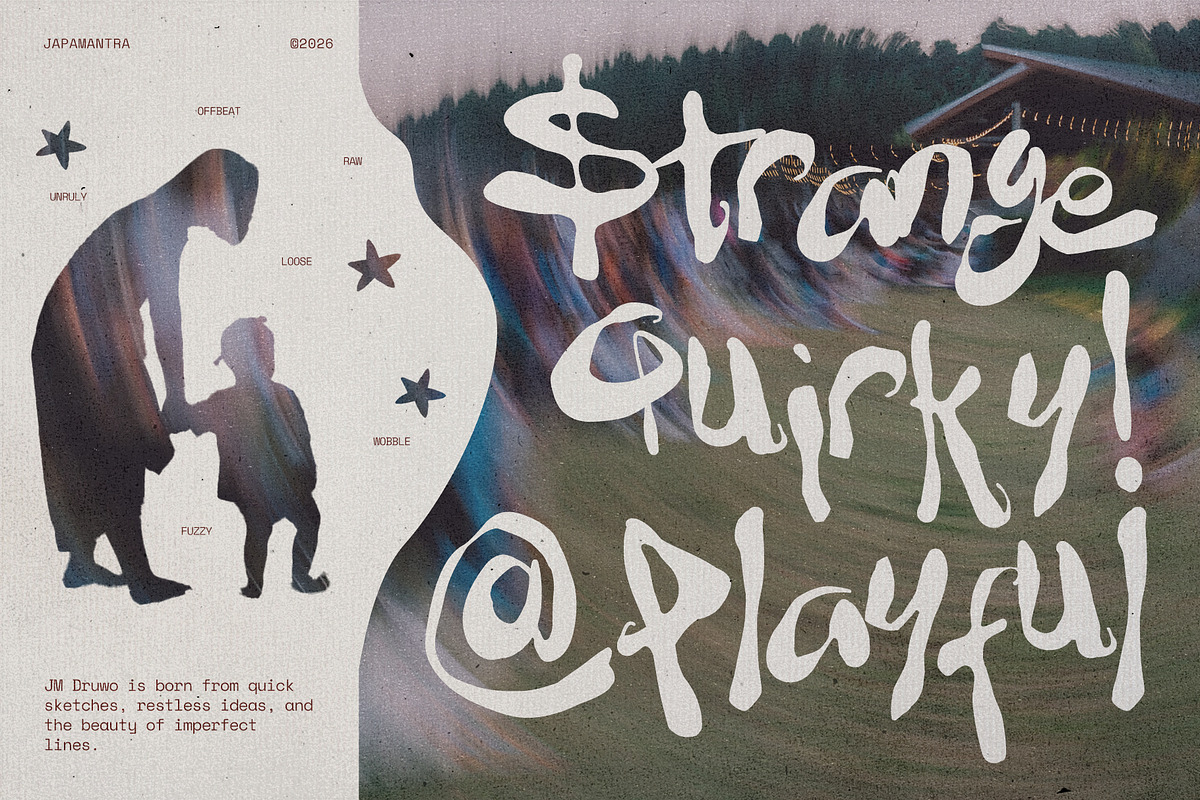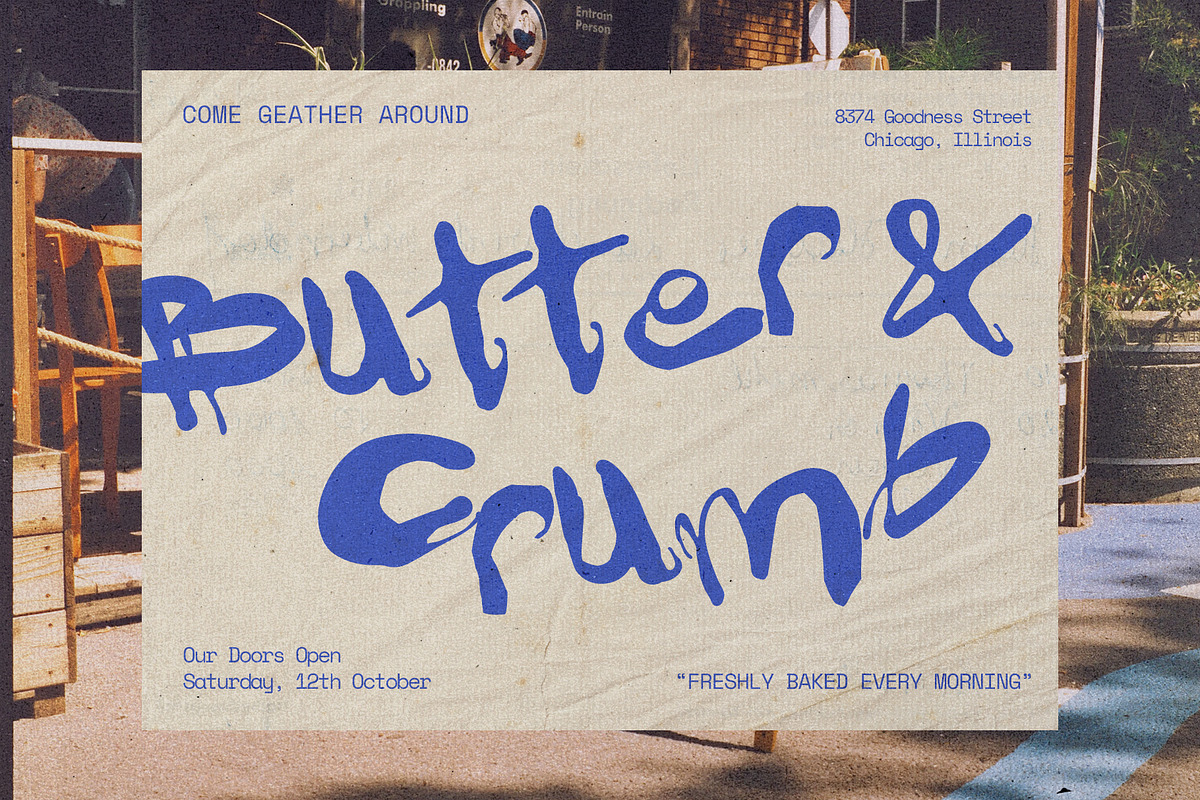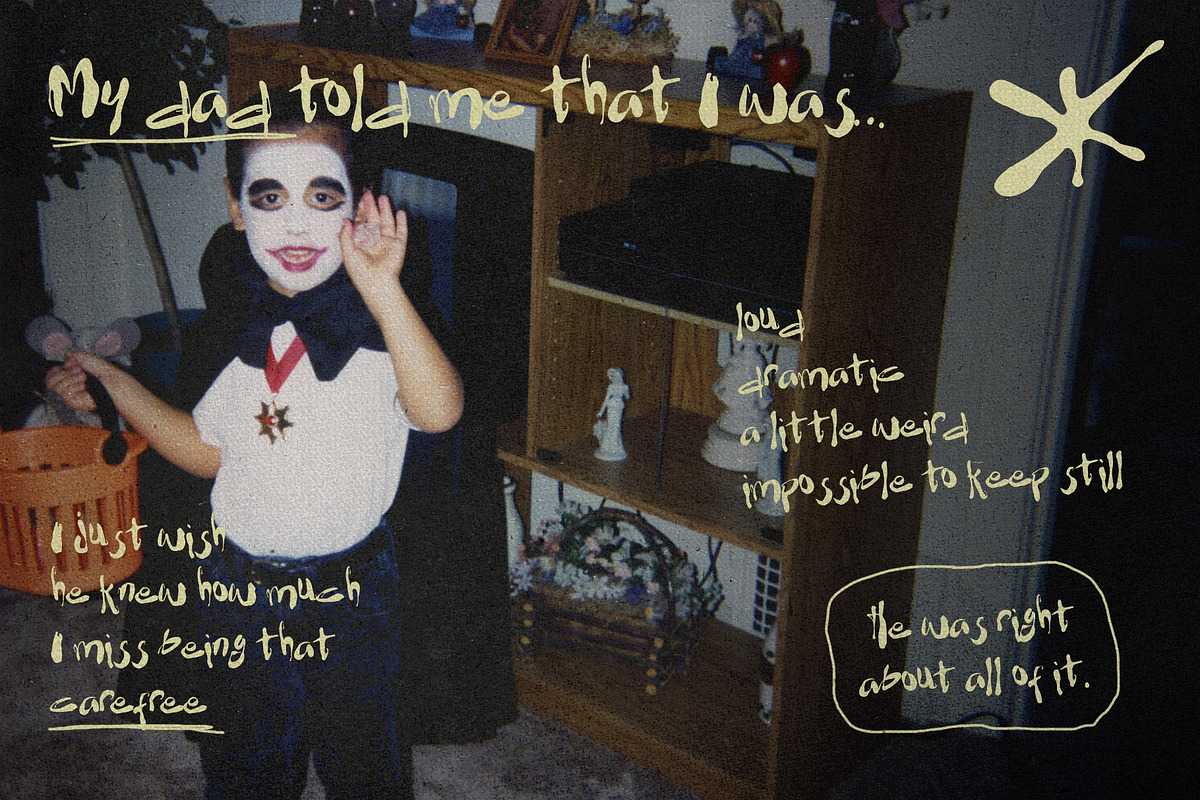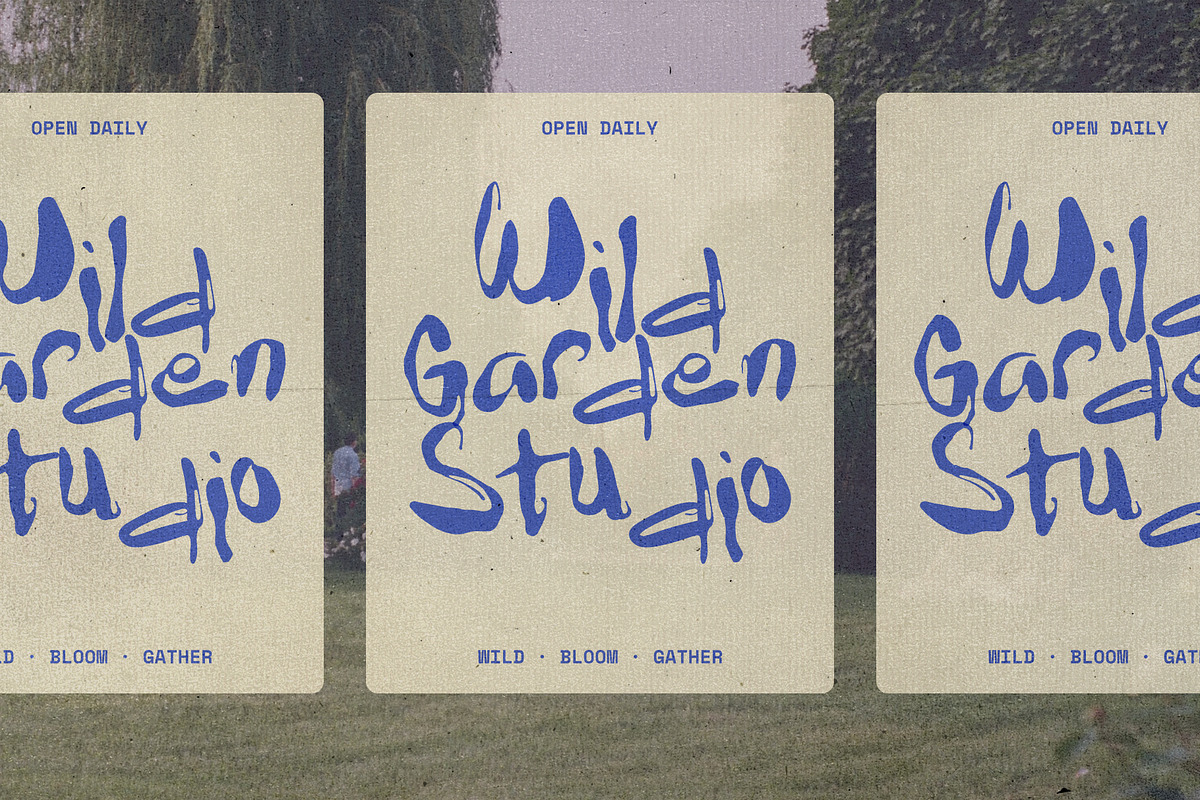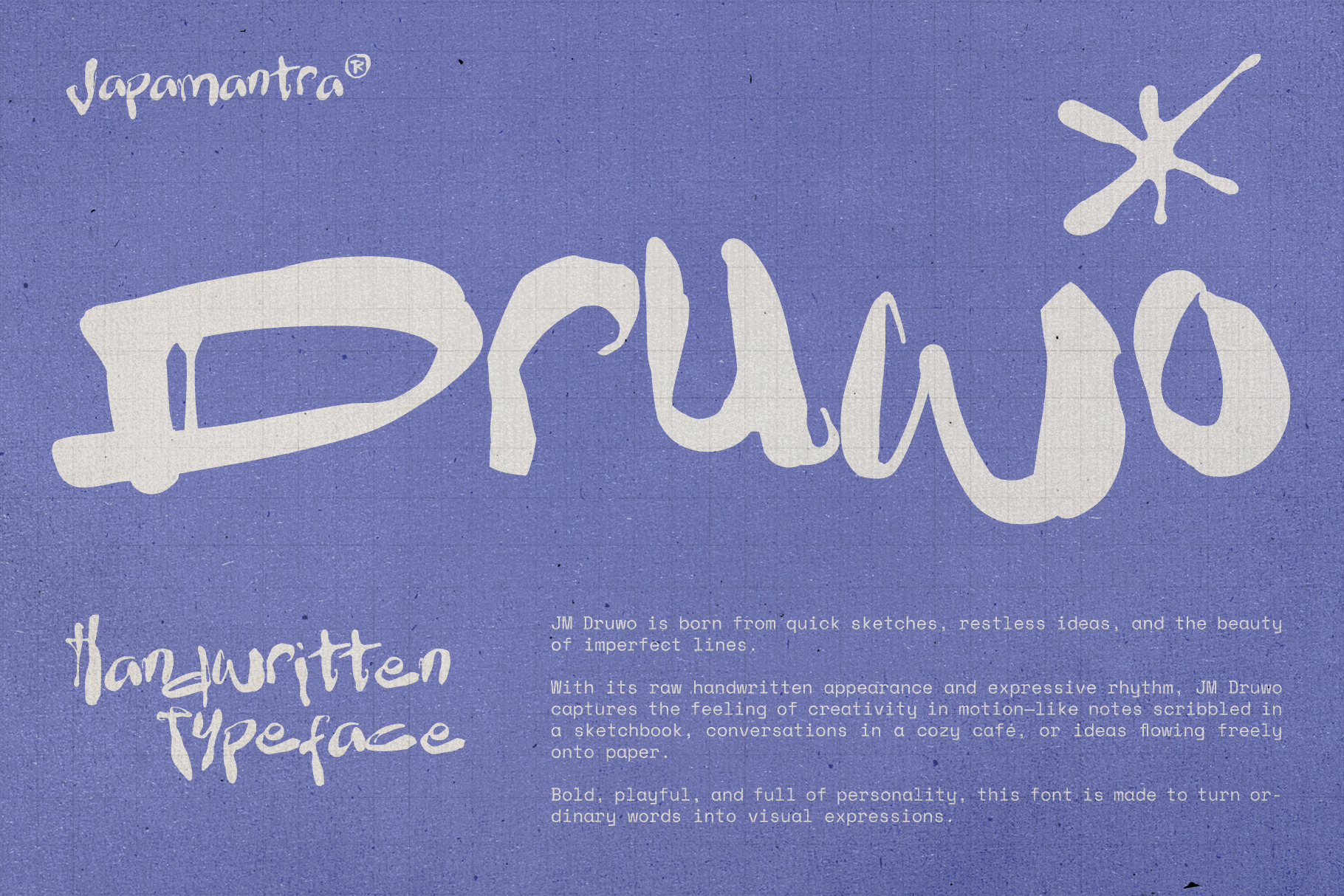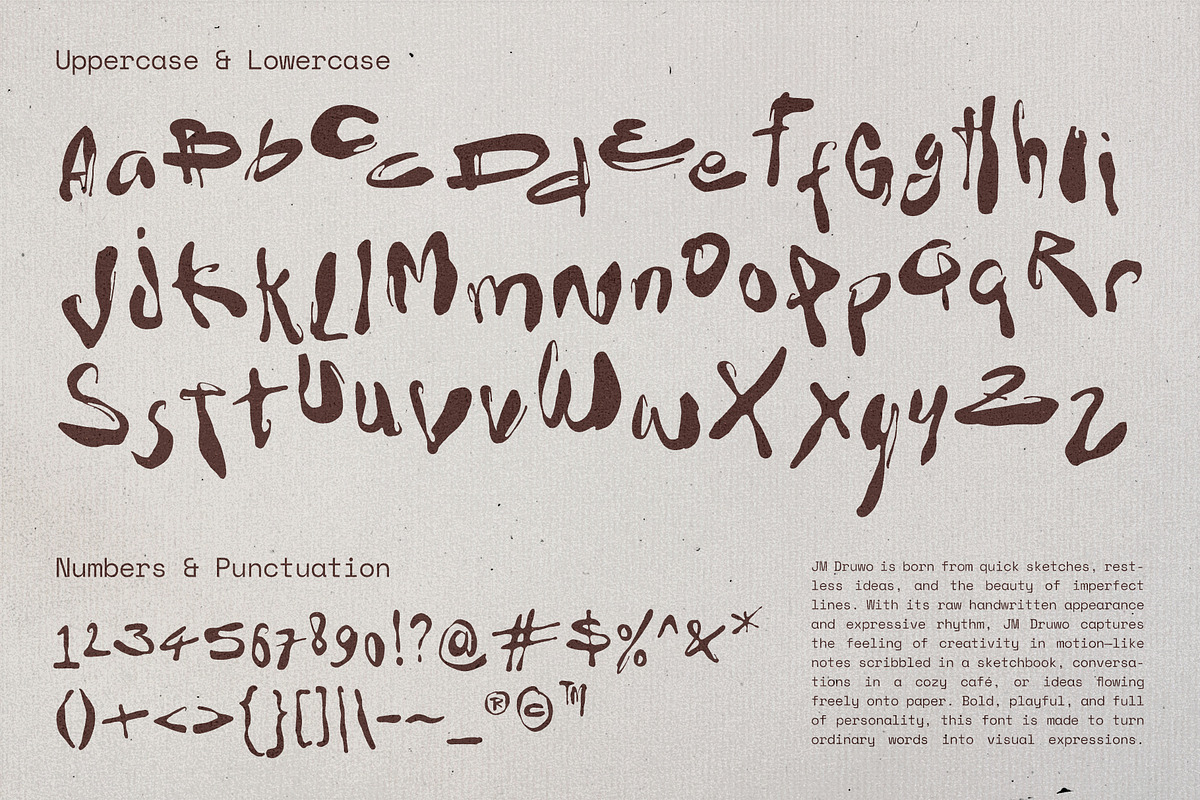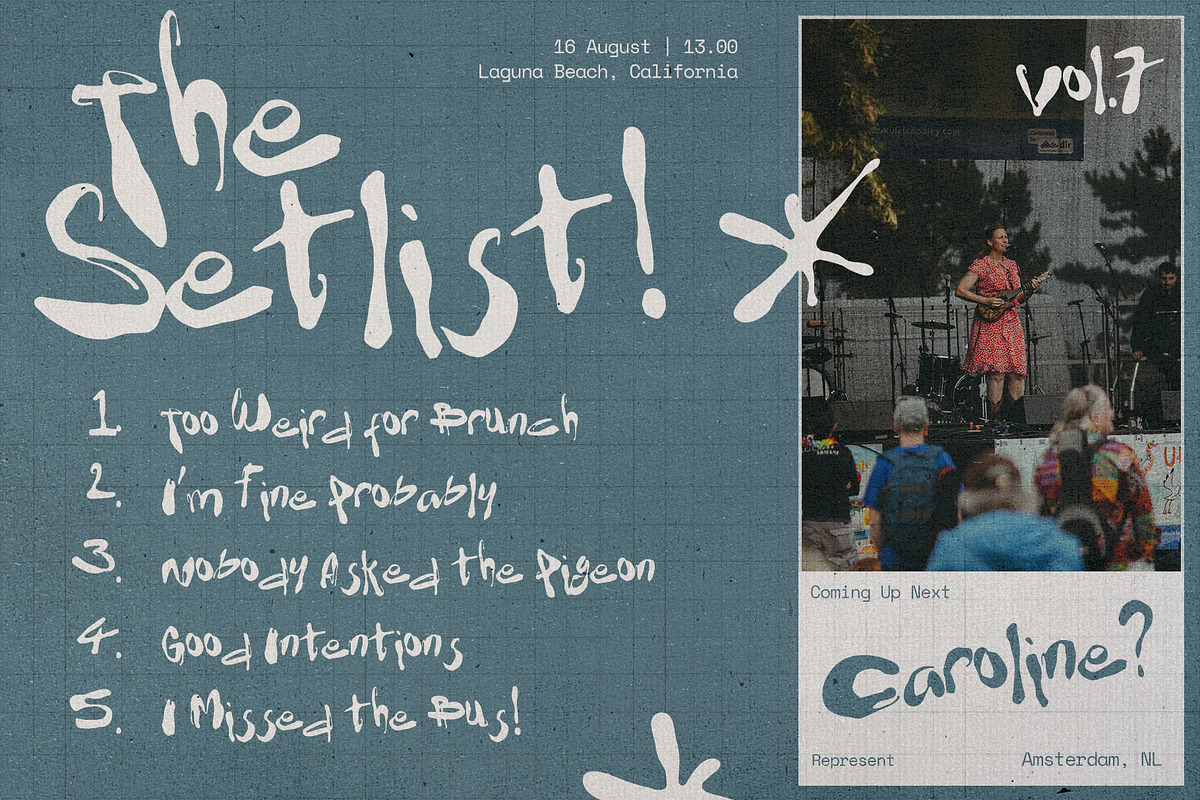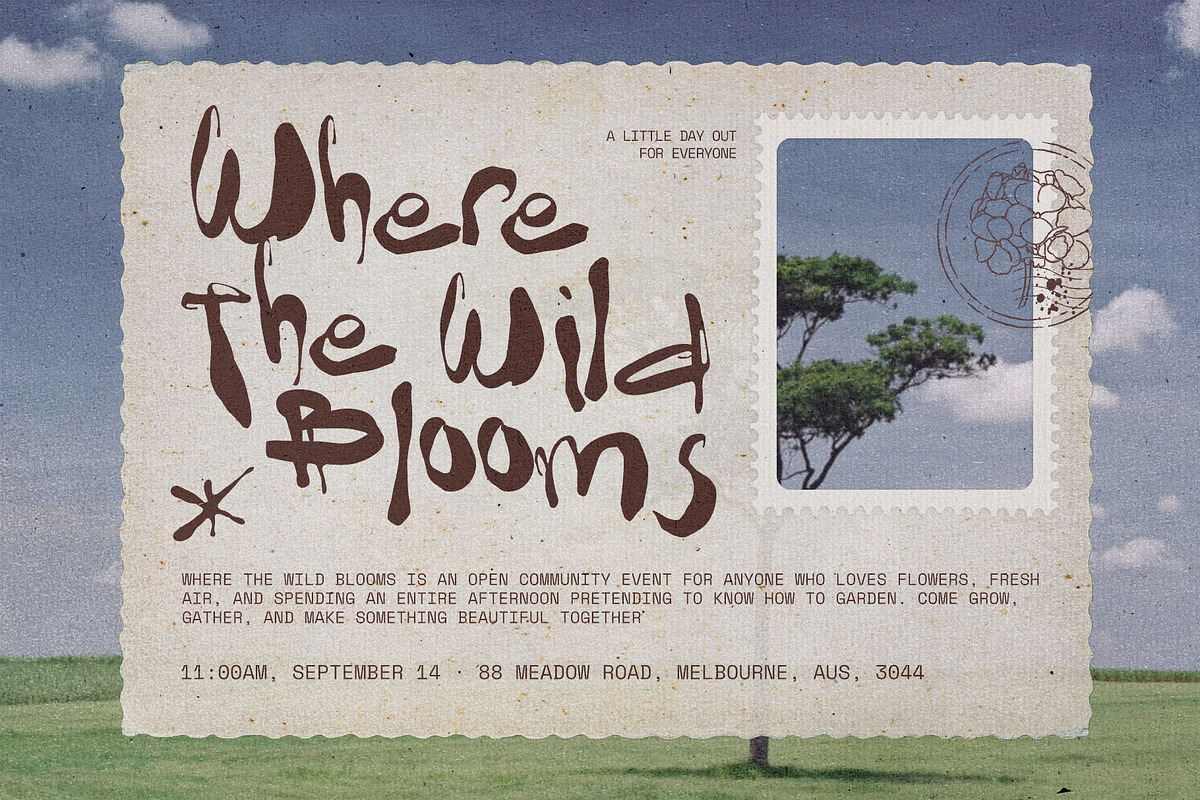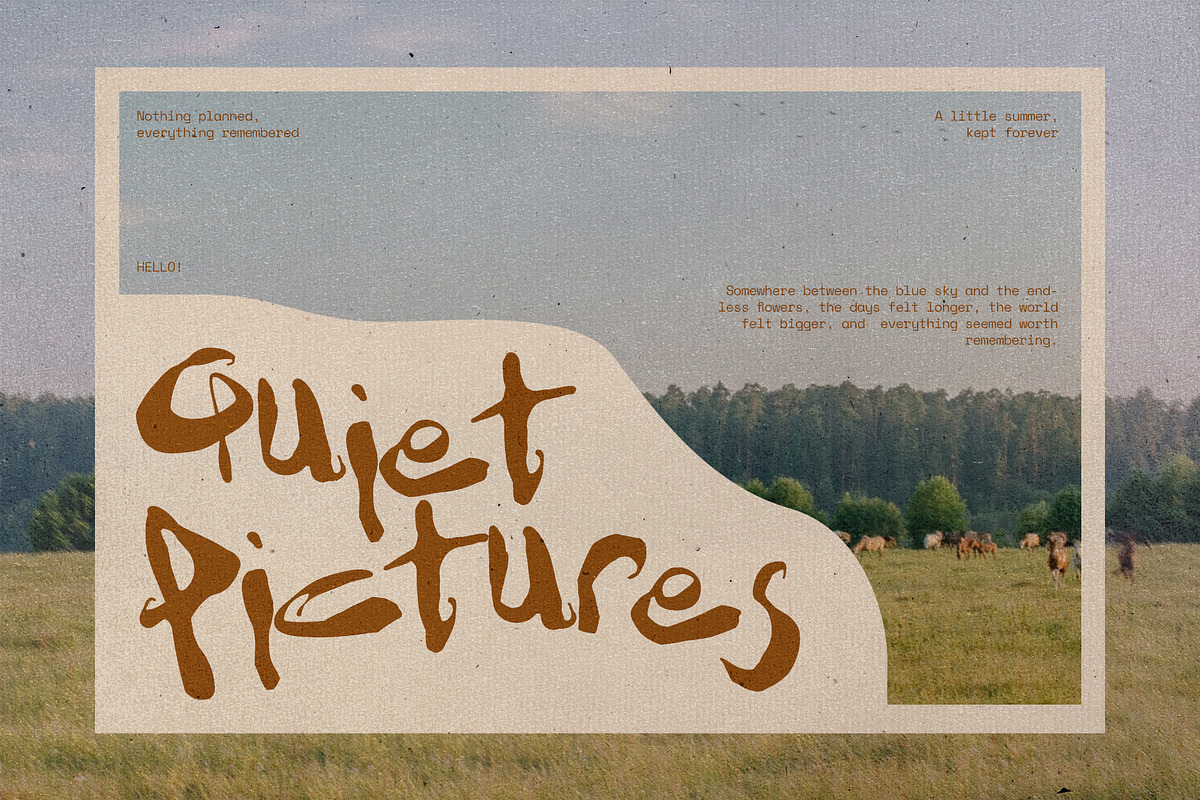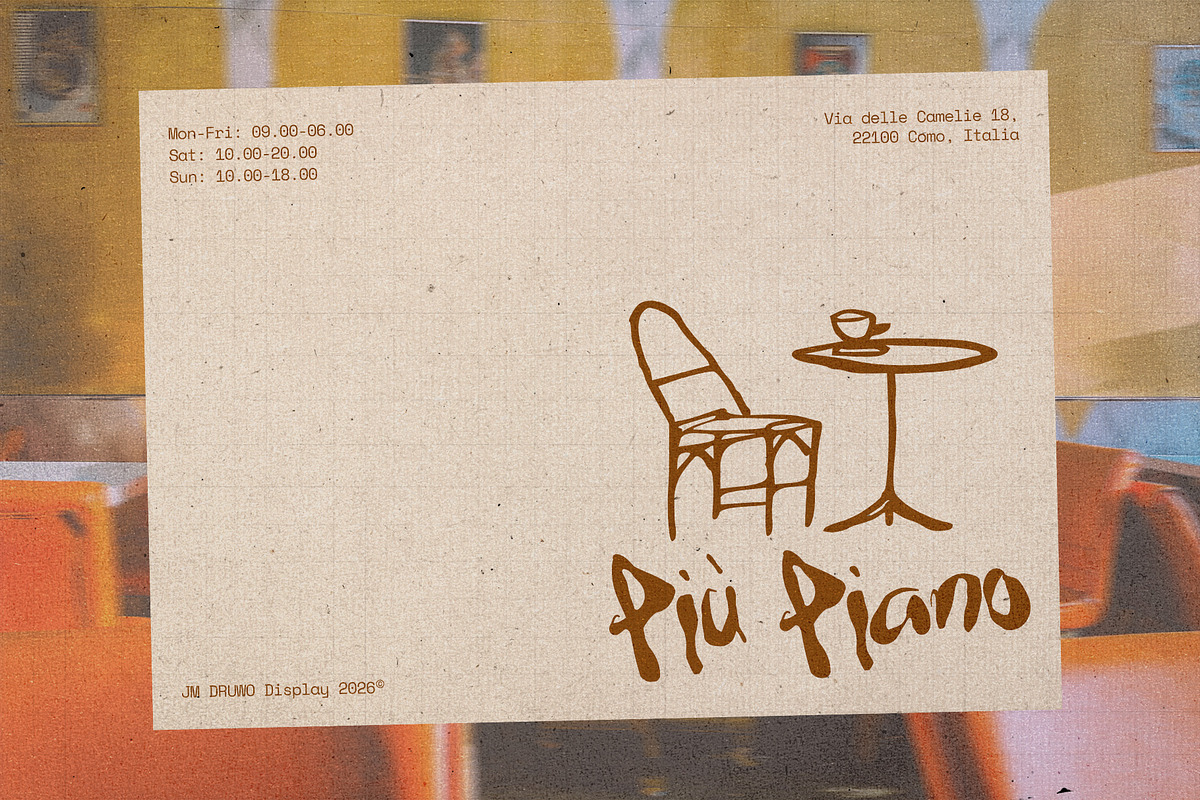
JM Druwo Font
JM Druwo is a raw, expressive handwritten display font inspired by quick sketches, spontaneous ideas, and imperfect lines. With its bold brush-like strokes, loose shapes, and naturally uneven rhythm, it captures the authentic feeling of writing by hand.
Full of movement and personality, JM Druwo brings a casual, artistic energy to every word. Its imperfect letterforms and organic texture make it feel like something written directly into a sketchbook—spontaneous, playful, and full of character.
Perfect for posters, branding, packaging, apparel, album artwork, editorial designs, social media graphics, quotes, invitations, and creative projects that need a distinctive handmade touch.